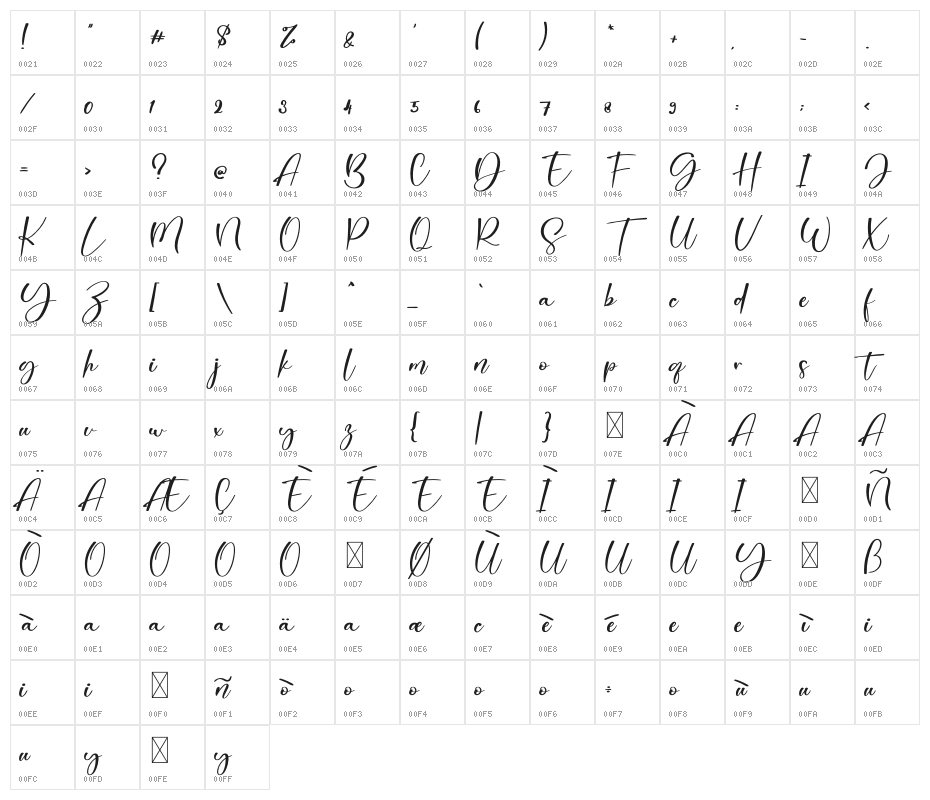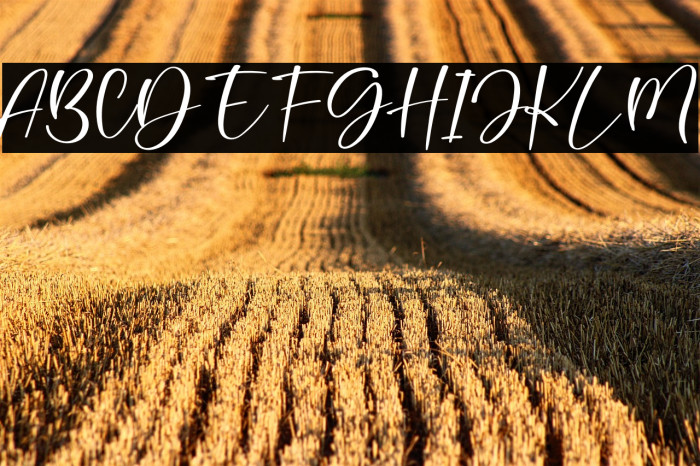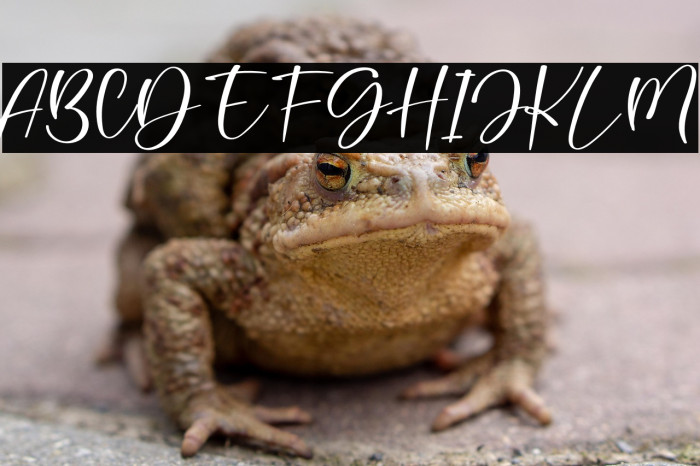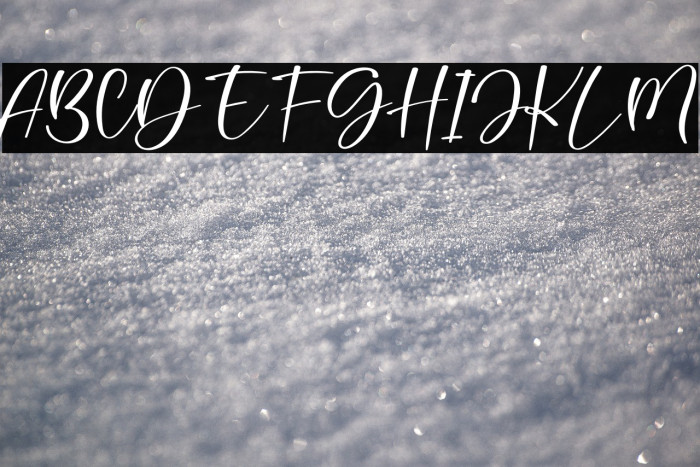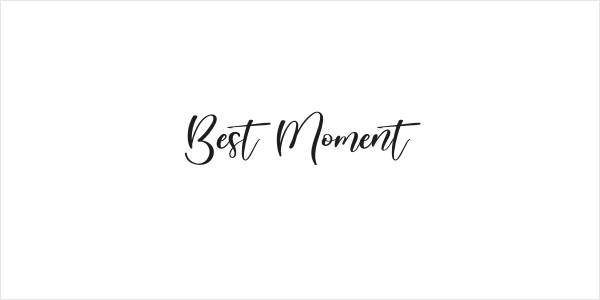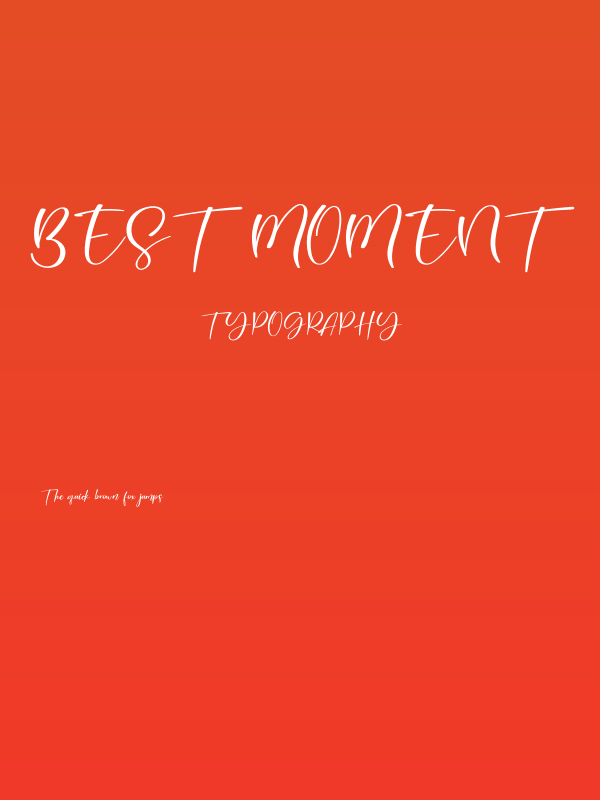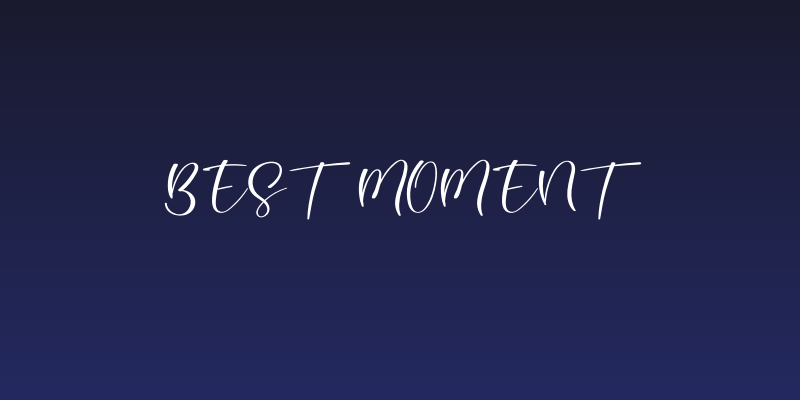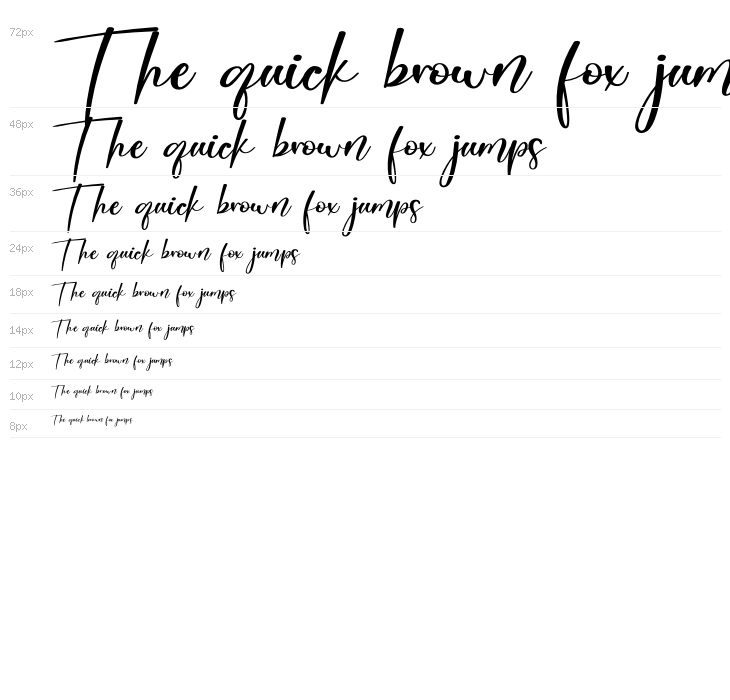
Best Moment Font
Best Moment Description
This font features a flowing, cursive style that exudes elegance and sophistication. The uppercase letters are tall and graceful, with sweeping curves and loops that give them a sense of movement. The lowercase letters maintain a consistent flow, with some characters extending below the baseline, adding to the font's dynamic appearance. The numbers are designed with a similar flair, ensuring consistency throughout. Special characters are creatively integrated, maintaining the overall aesthetic. This font is perfect for projects that require a touch of class and personality.
| Overall Style | Elegant, Decorative |
| Proposed Projects | Ideal for wedding invitations, greeting cards, branding, and elegant event posters. |